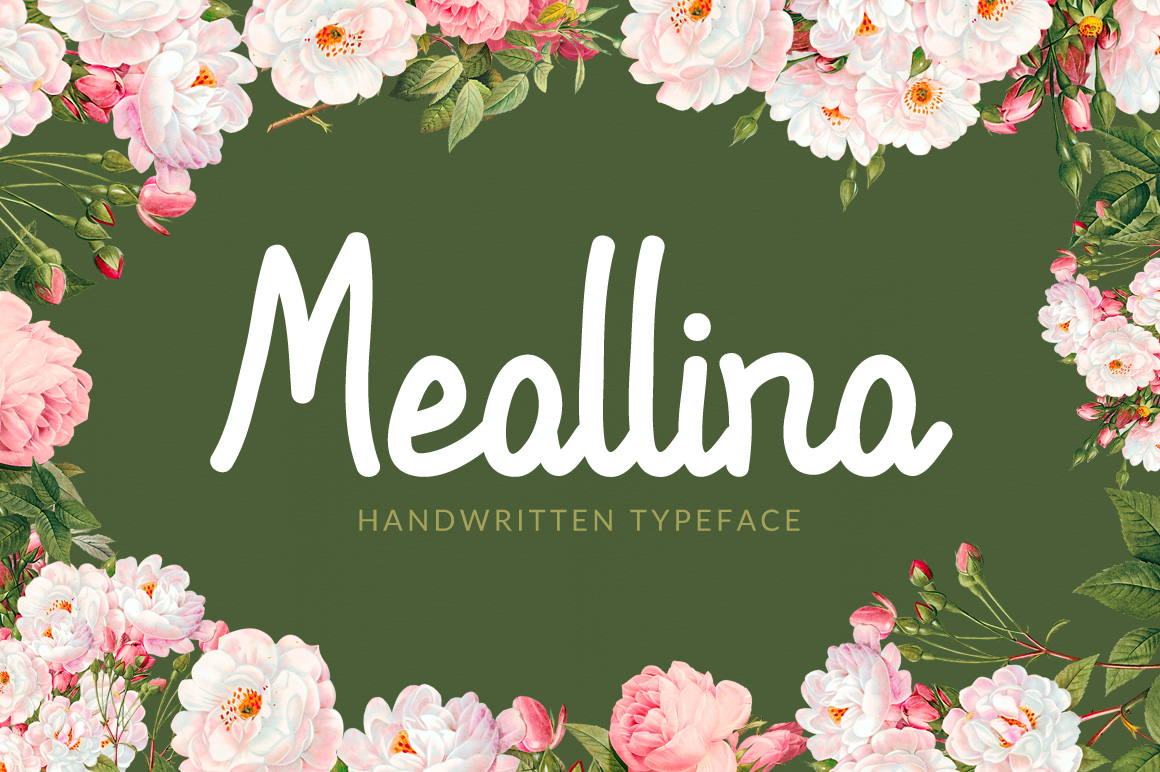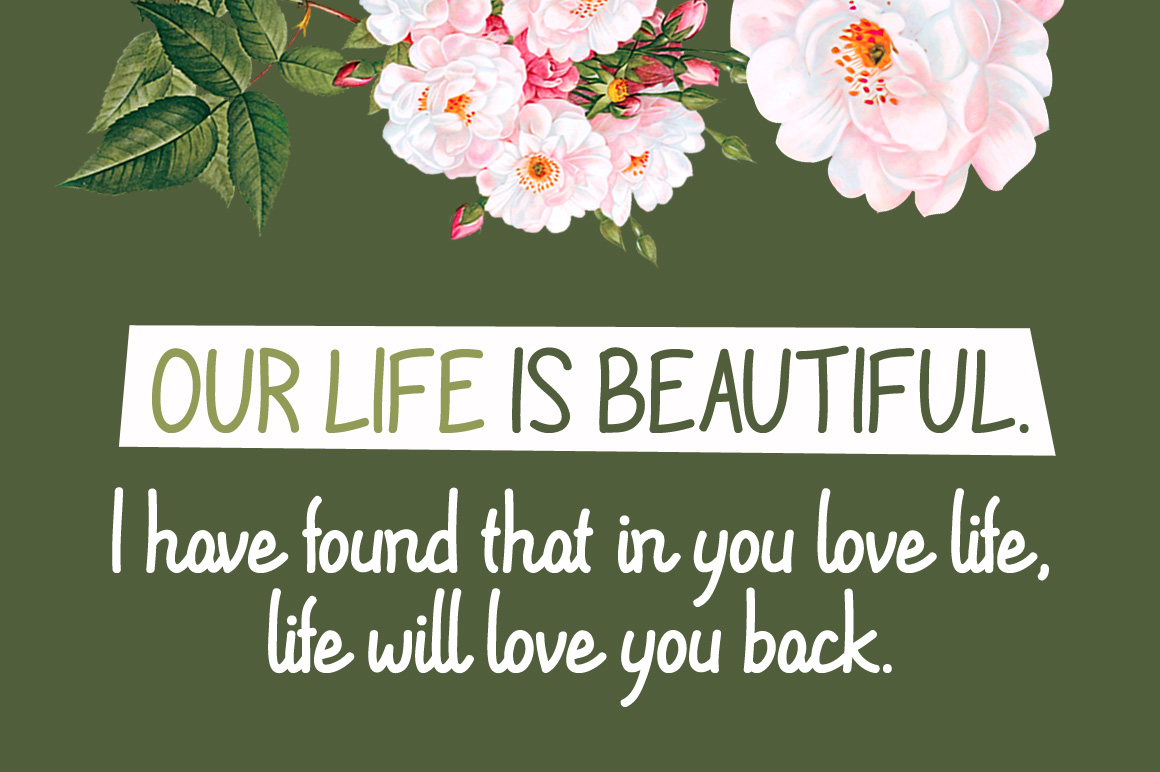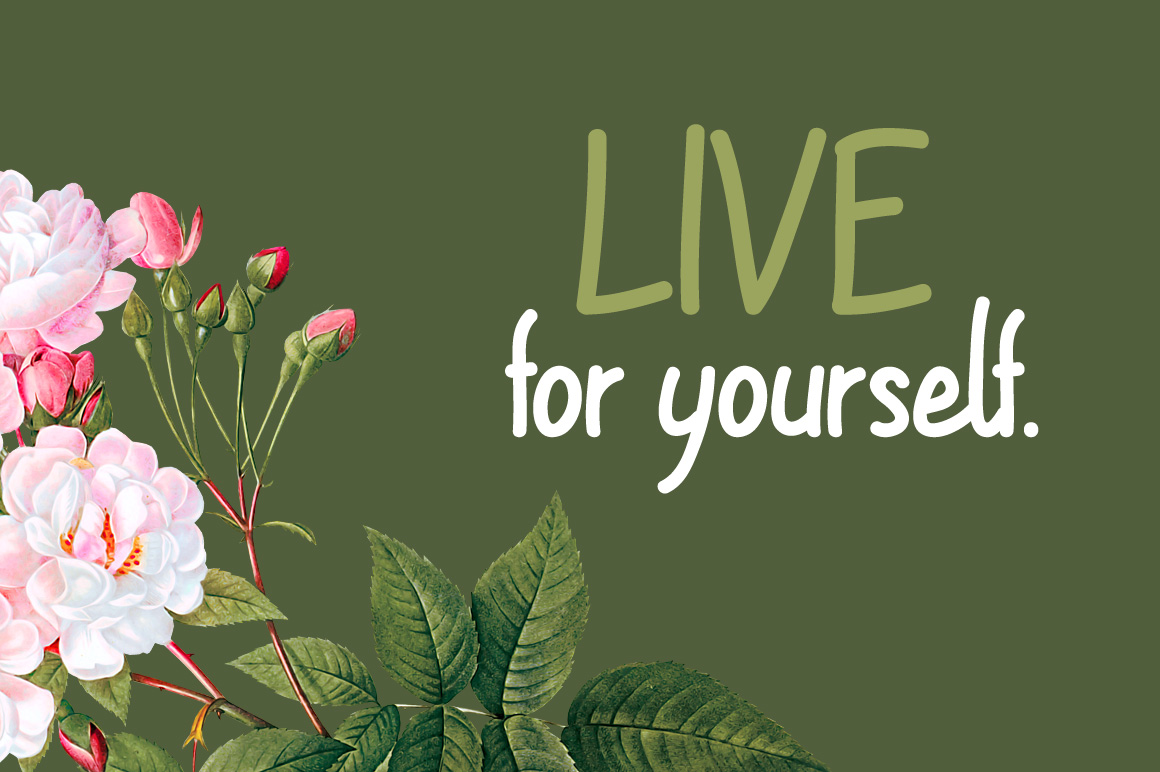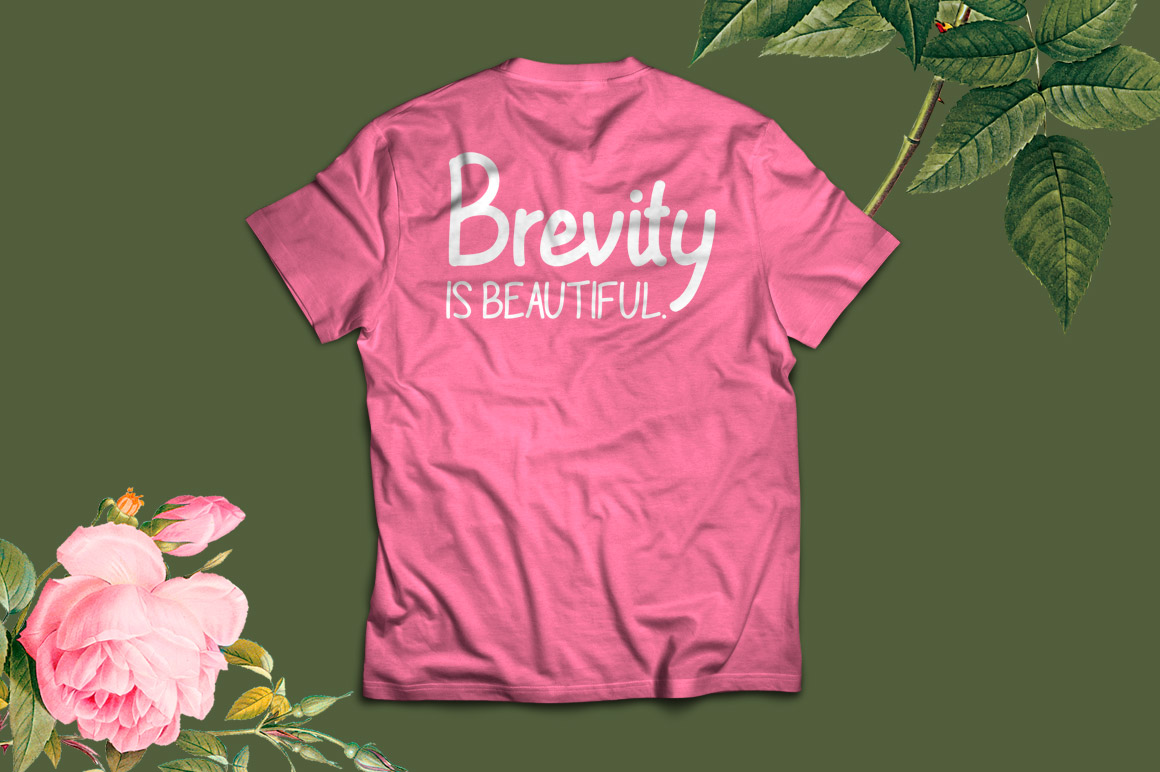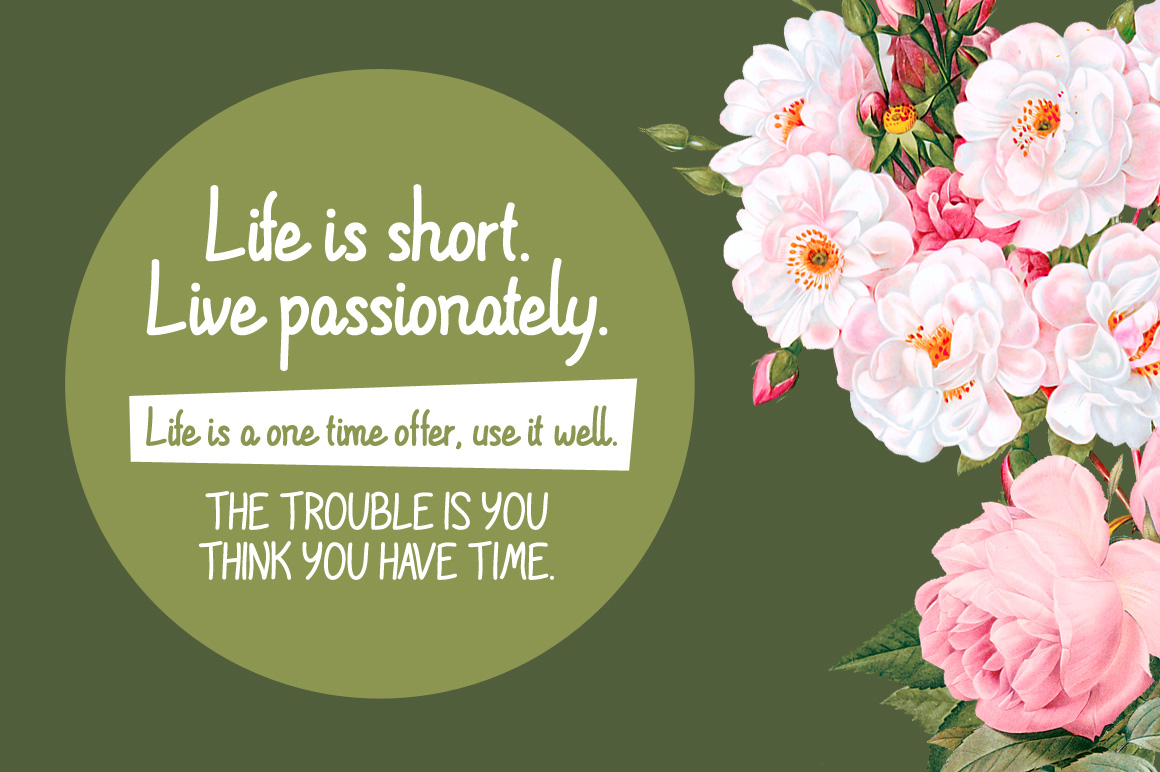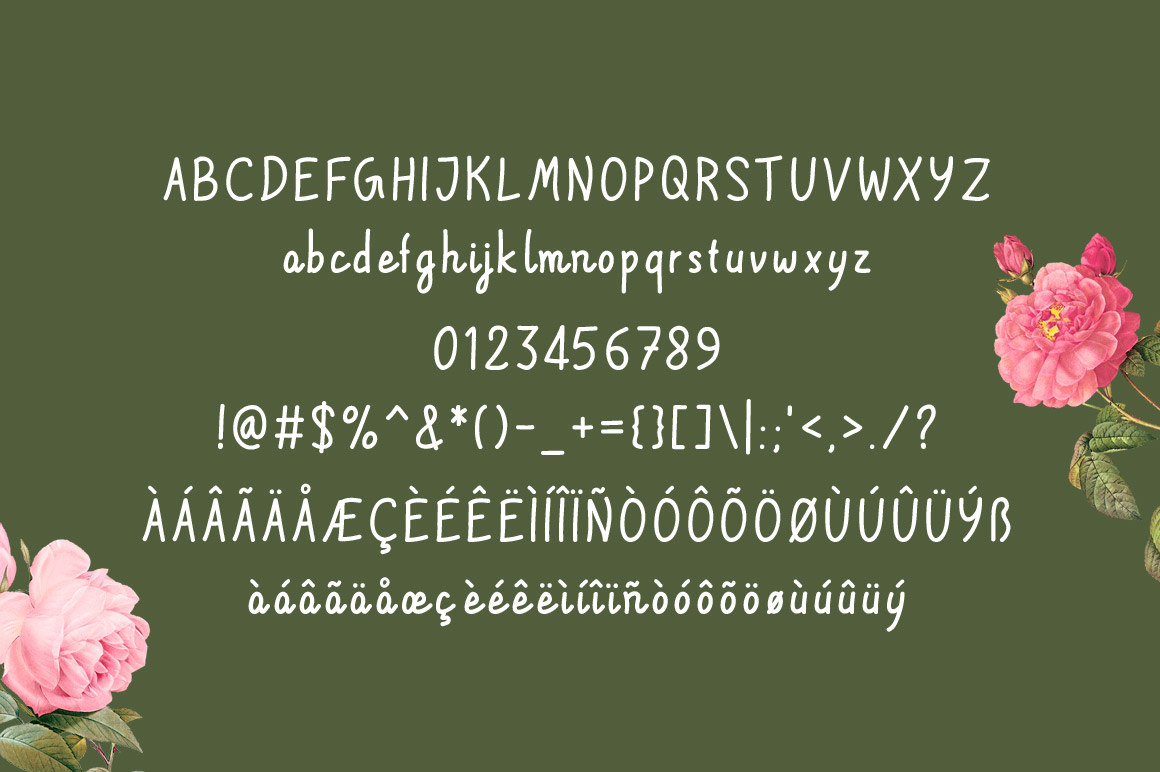
Meallina Font
About Meallina Font
Meallina is a gorgeous and simple handwritten font done in a sans serif style. This font is friendly and relaxed, and will add a ton of appealing casualness to your designs.